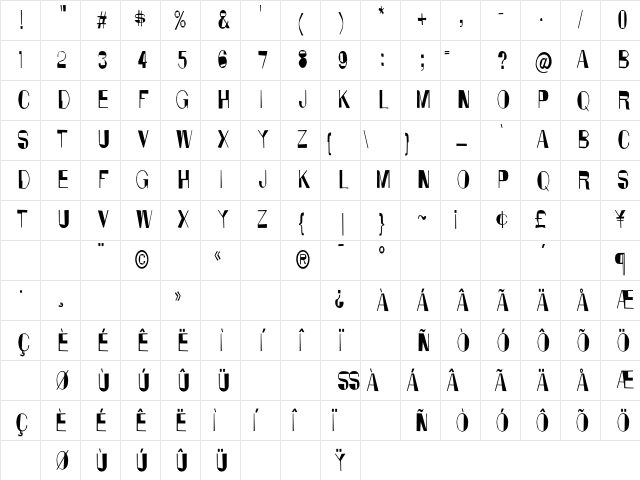
Anarko Condensed Free Font
Anarko Condensed
Style: Condensed
Anarko Family
Anarko Condensed
Complete Anarko Condensed glyph index. Displaying only characters natively supported by Anarko Condensed font.
Design Context for Anarko
Anarko is a composed and adaptable typeface that performs quietly and consistently across a wide range of design contexts. Its narrow stance lets it pack a punch even in space-constrained designs.